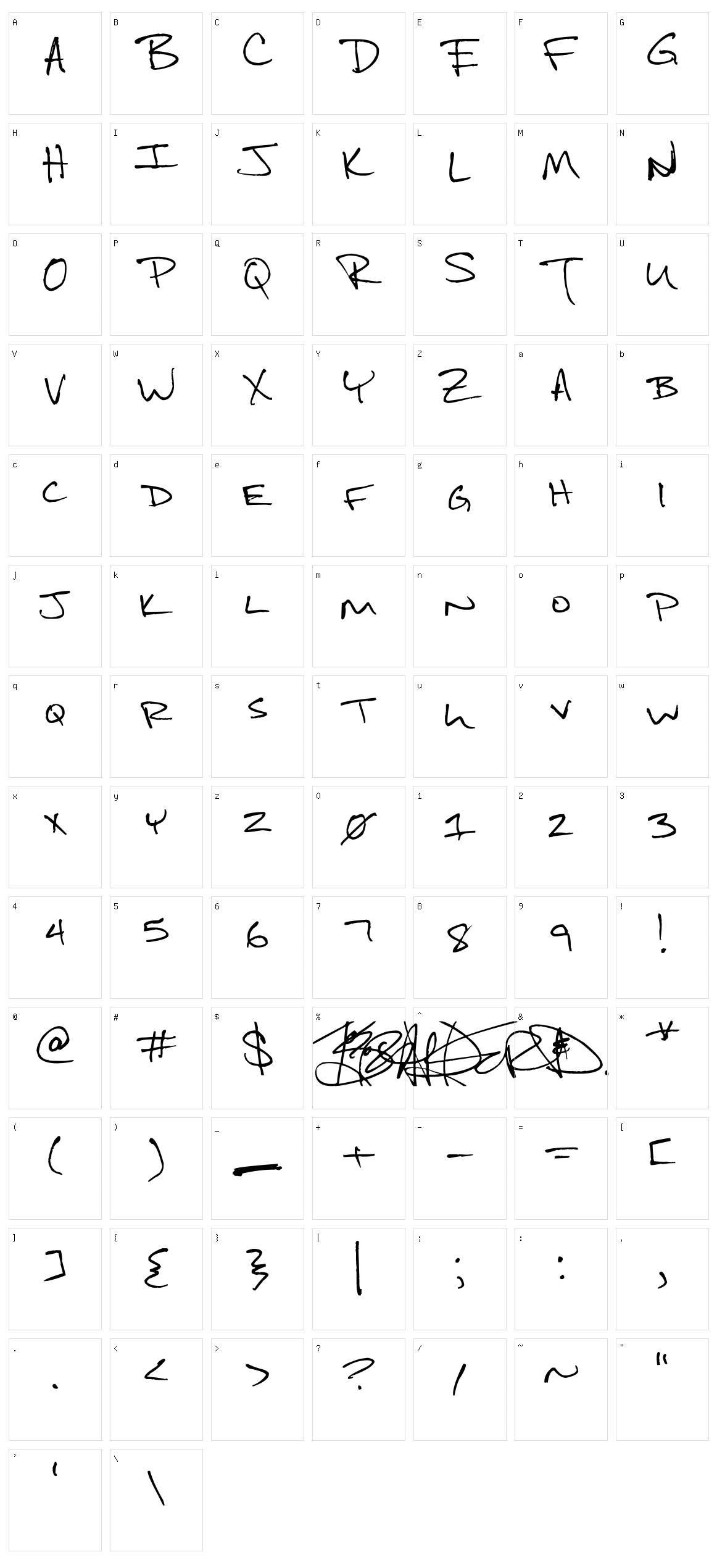
The free font Bradford is carefully designed by Bradford Johnson, showcasing a thoughtful balance of creativity and usability and falls under the Script font style. When you download the ZIP file, it contains only 29.97 KB of font files, making it lightweight and quick to download. Please review the license details below to understand permitted usage and distribution rights. If license information is not available, we recommend using this font for personal projects only or contacting the author directly for commercial usage permissions.